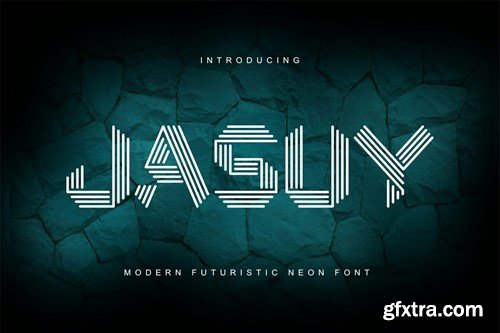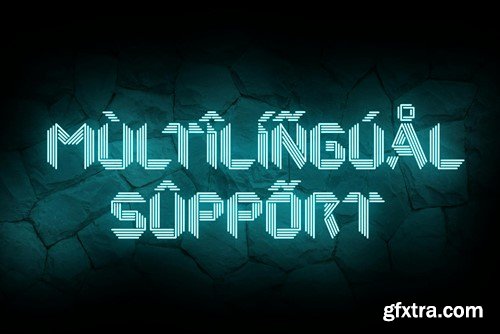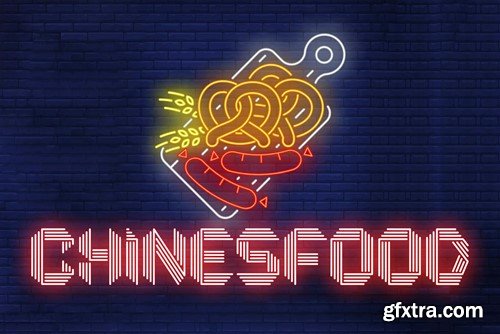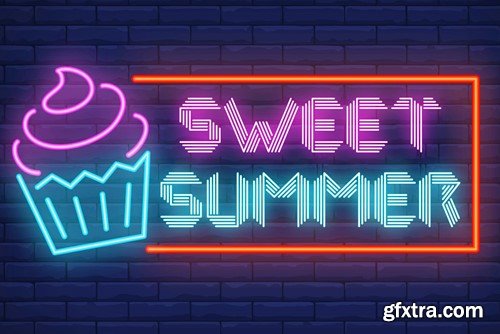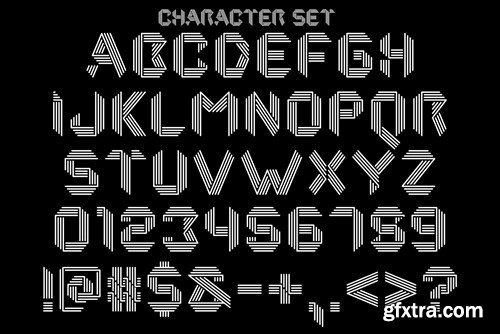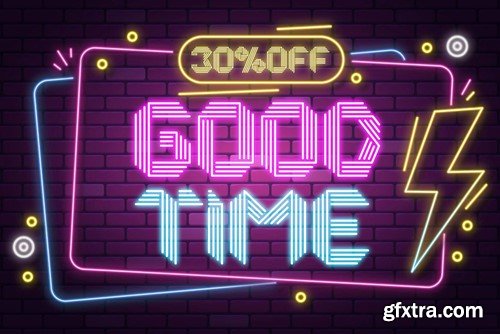
Jasuy is a futuristic neon font with a modern shape that makes your design look unique and stylish. This new Display Font is specially created for headlines, titles, and other standout typography needs, with extra ligatures that will add variation. It’s perfect for adding style and a headline overview. Specifically crafted for this font, we aimed for a unique style and modern feel so you can enjoy creating any project that showcases your main idea. Jasuy Futuristic Neon Font comes with: We hope you enjoy our font. :)